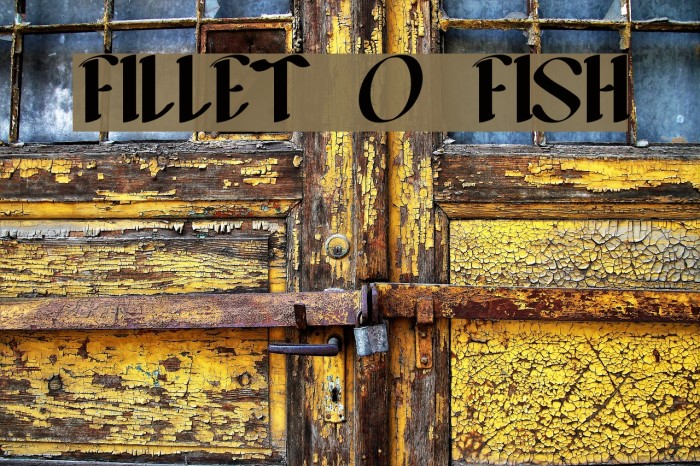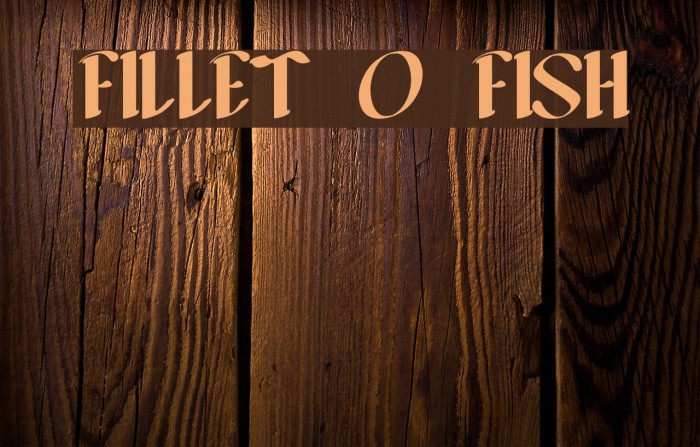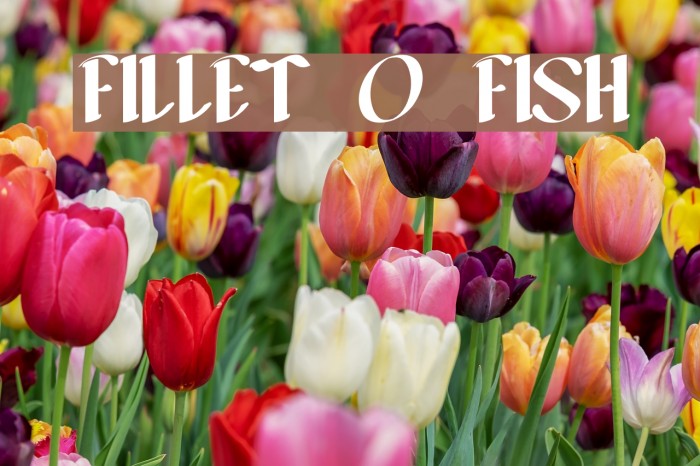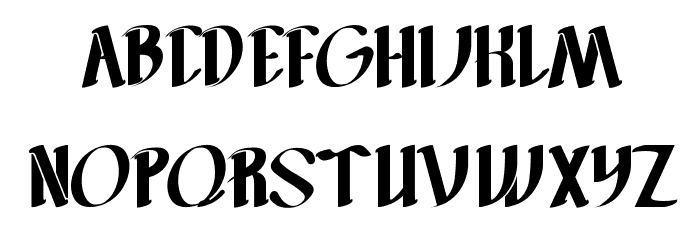
FILLET O FISH Font
This font features a bold and dynamic style with a strong presence. The characters are designed with a slight slant, giving them a sense of movement and energy. The strokes are thick and consistent, providing a robust and impactful appearance. The serifs are pronounced and add a touch of elegance to the overall design. This font is well-suited for making a statement, with its eye-catching and distinctive look. The spacing between characters is moderate, ensuring readability while maintaining its bold aesthetic.
A bold, dynamic font with pronounced serifs and a slight slant.
• Proposed Projects: Ideal for headlines, posters, branding, and any project needing a strong visual impact.